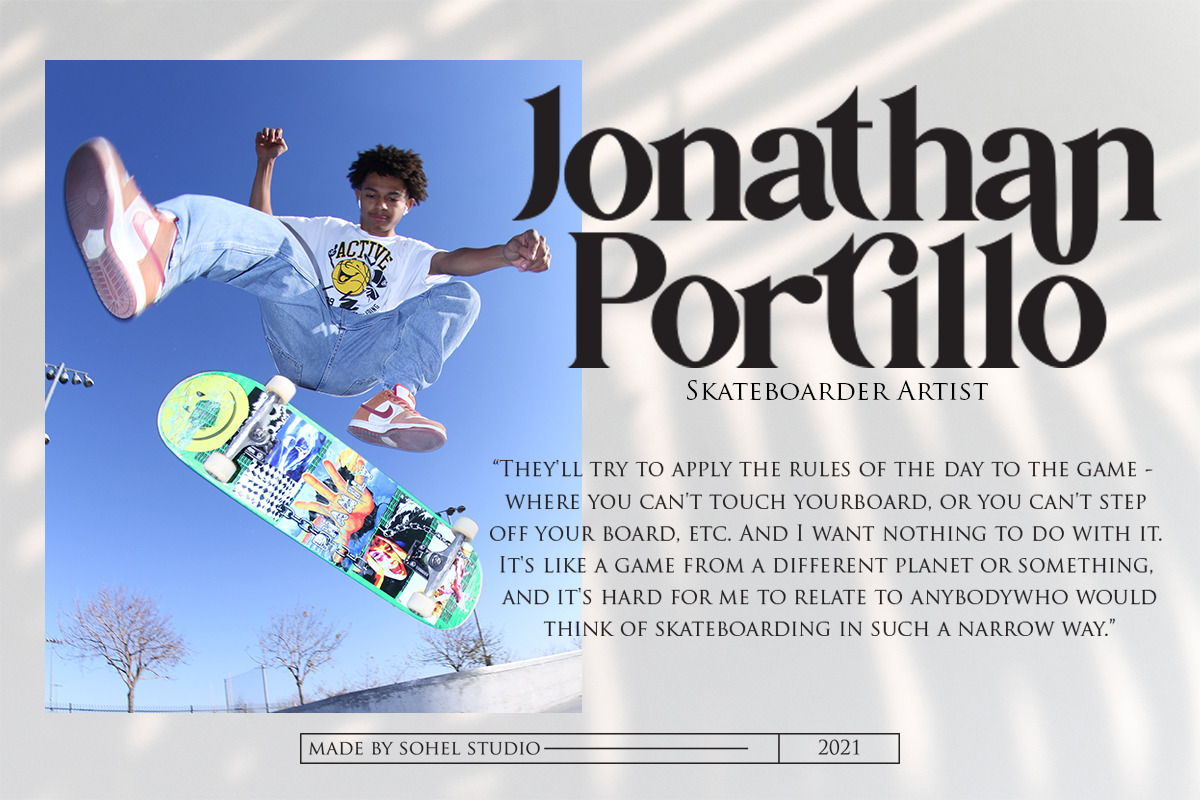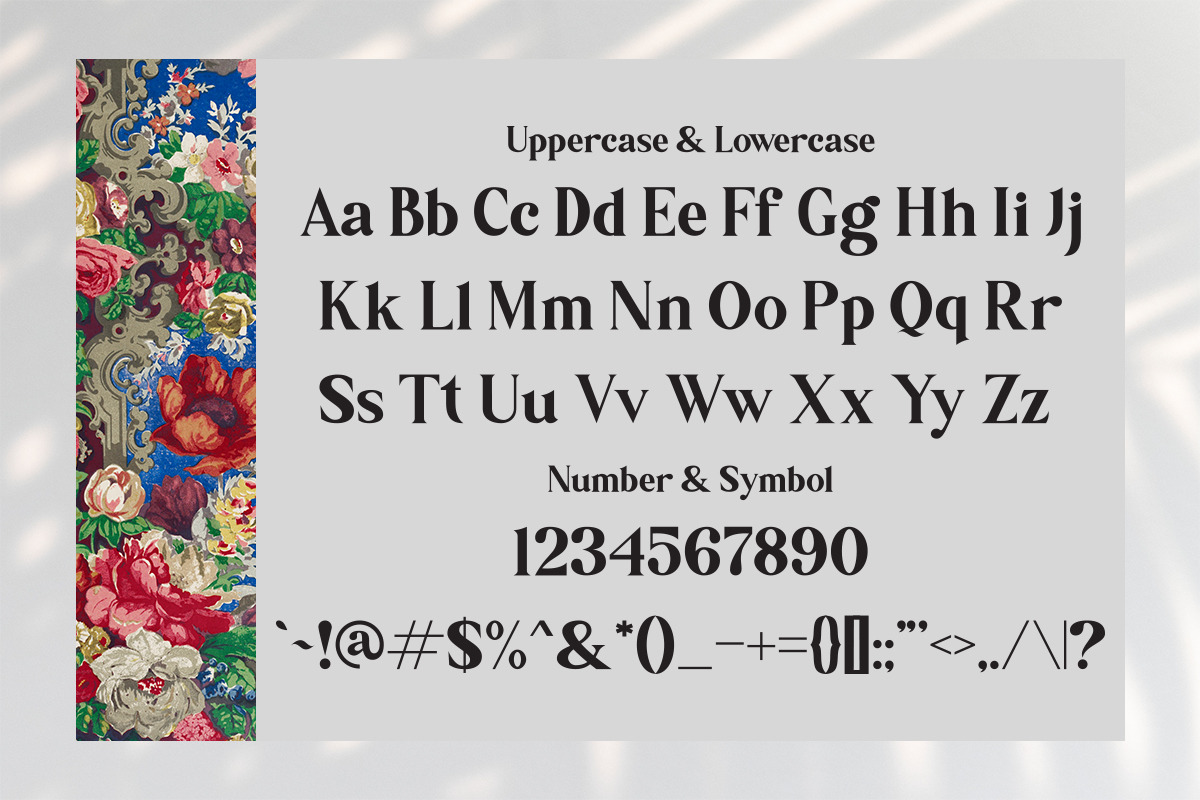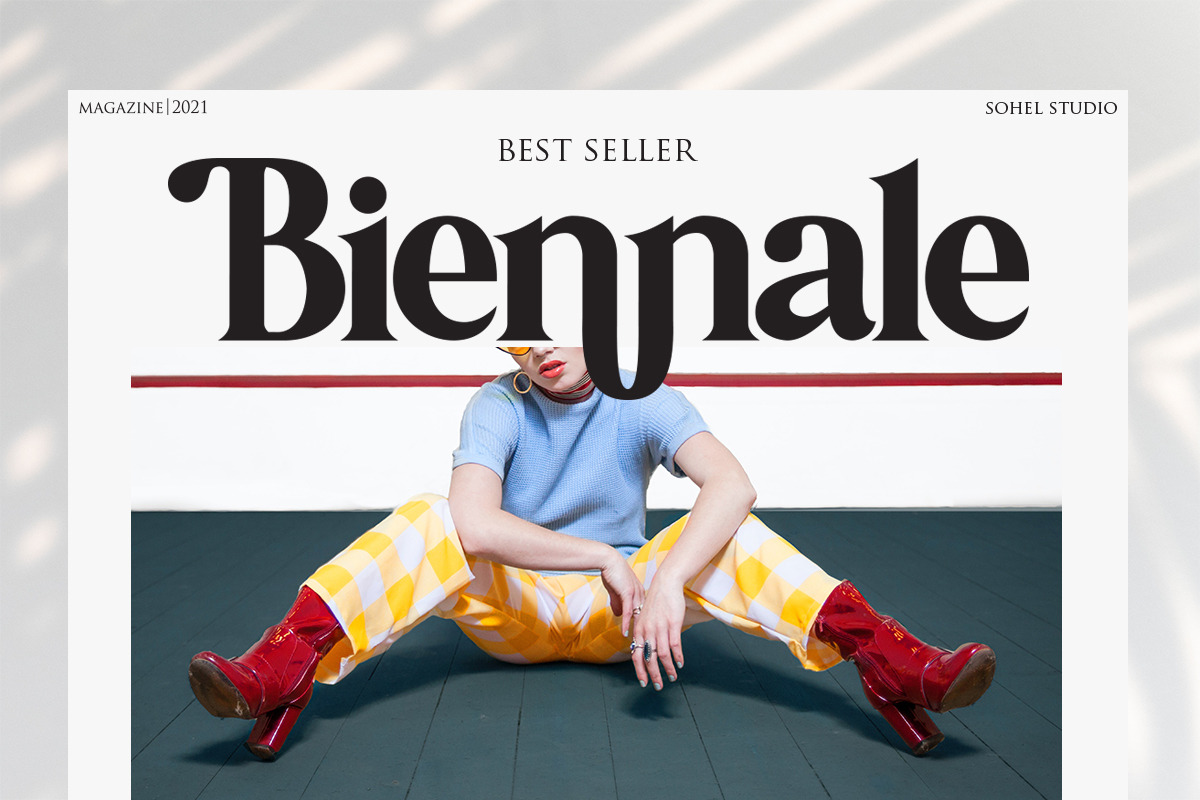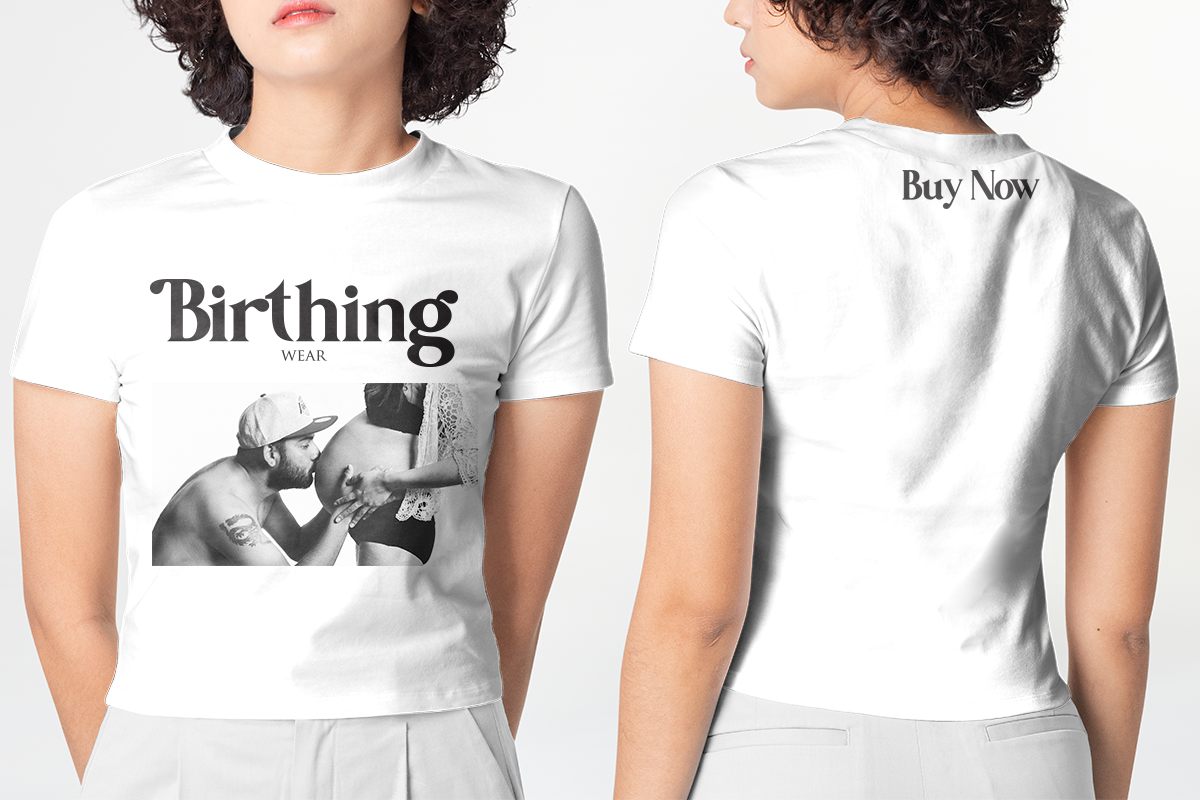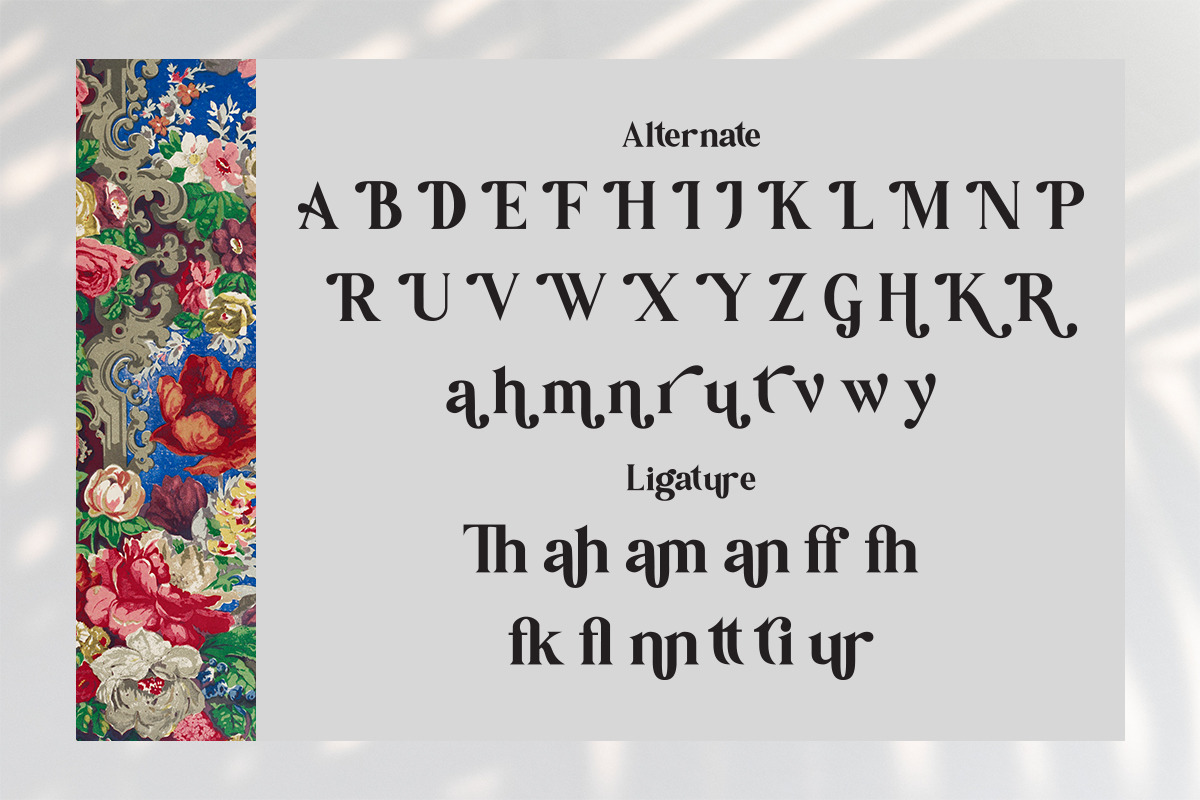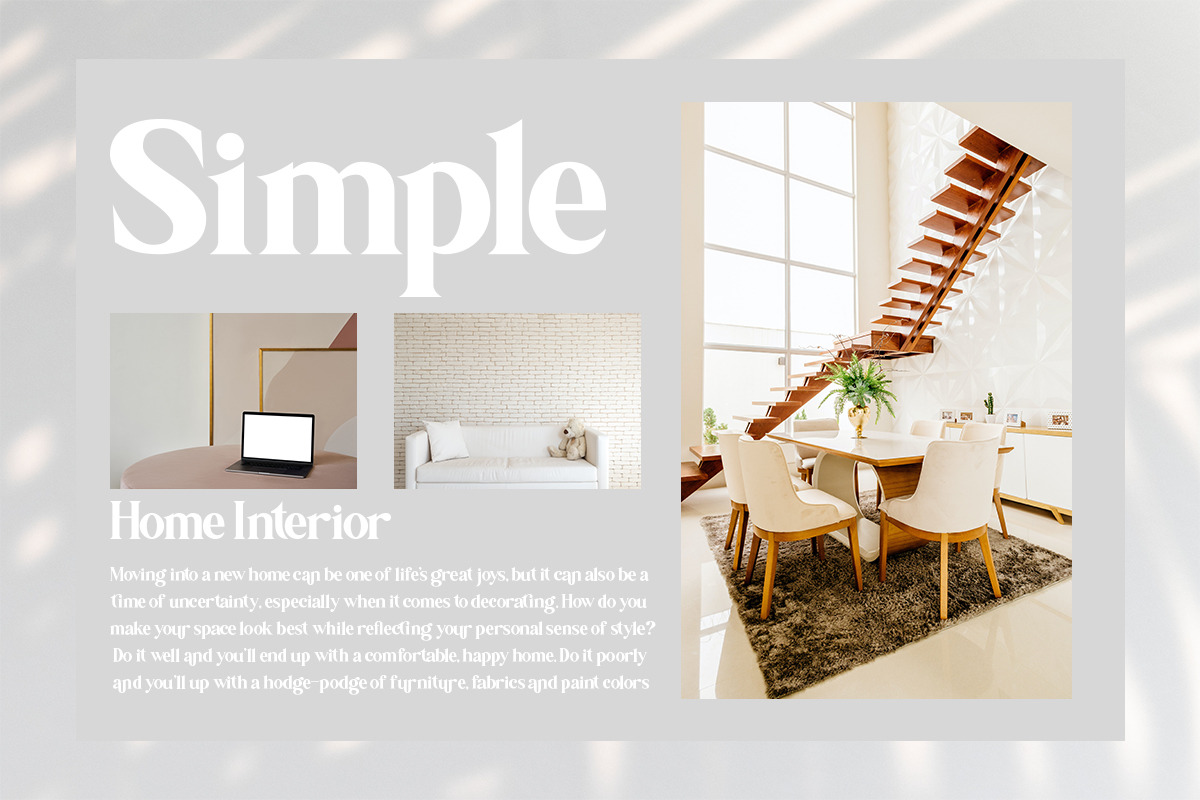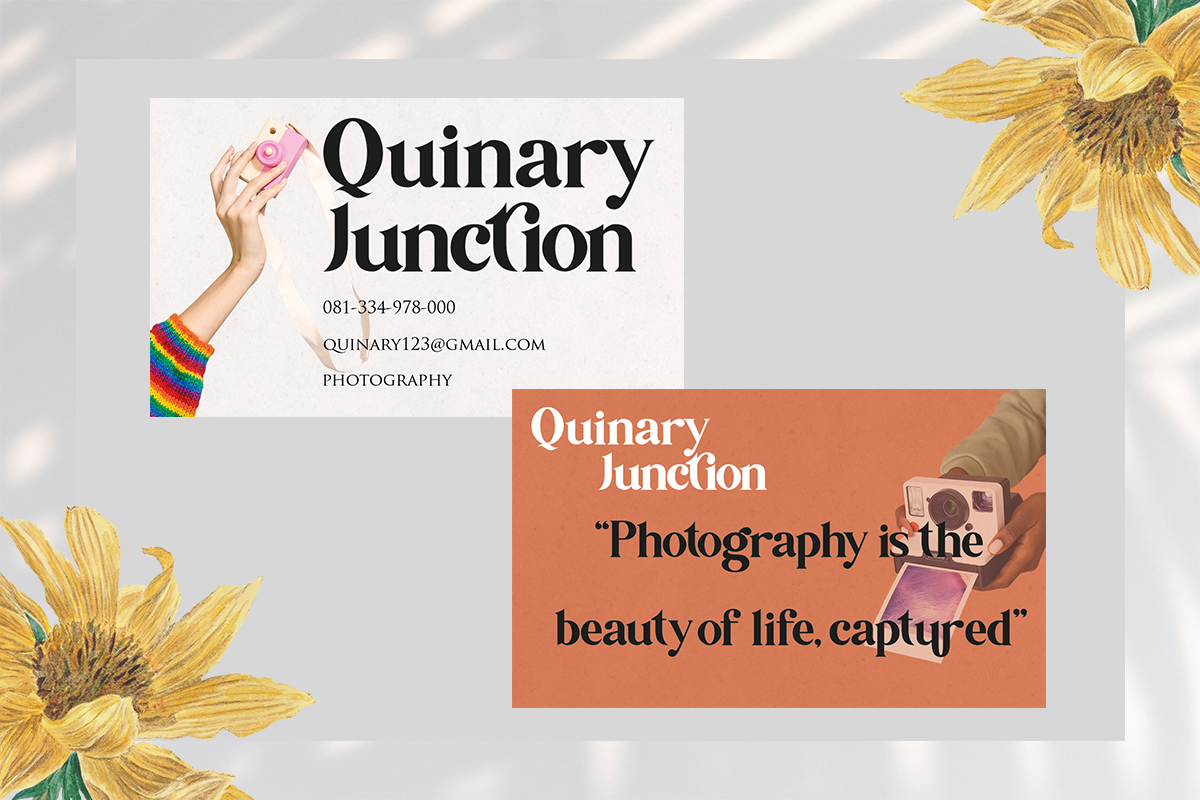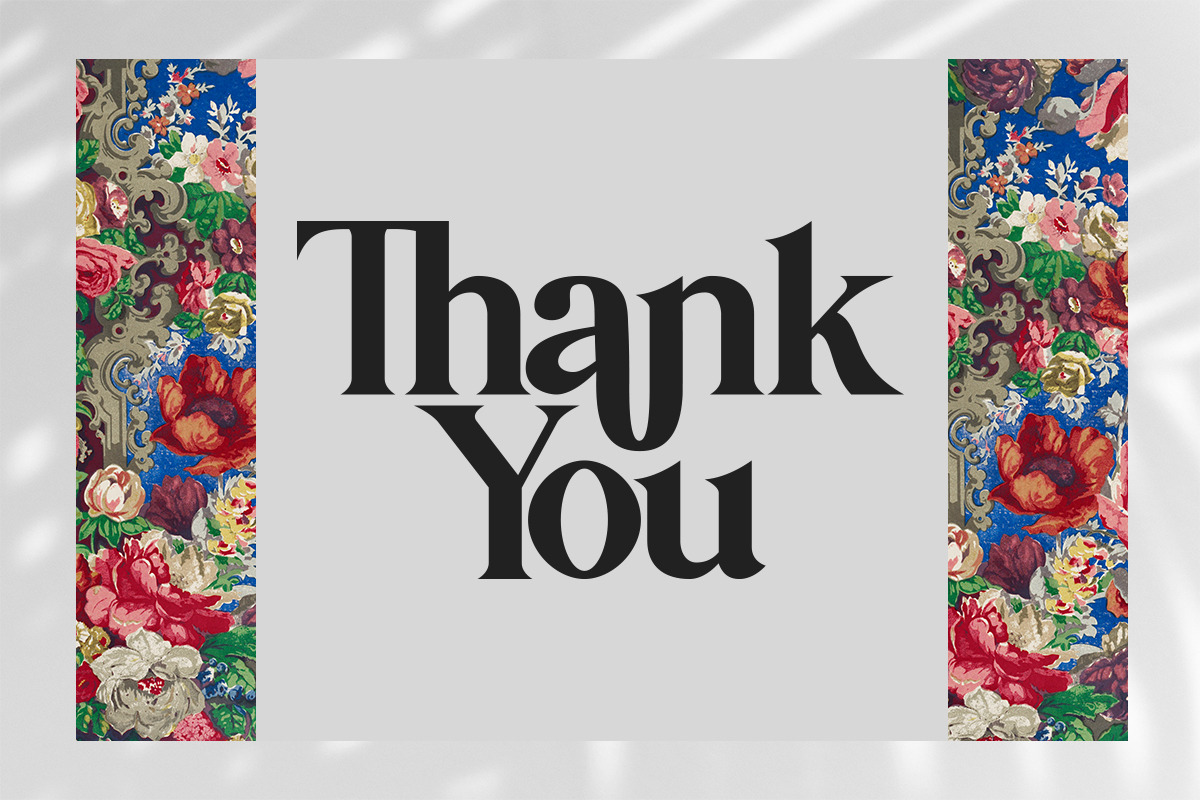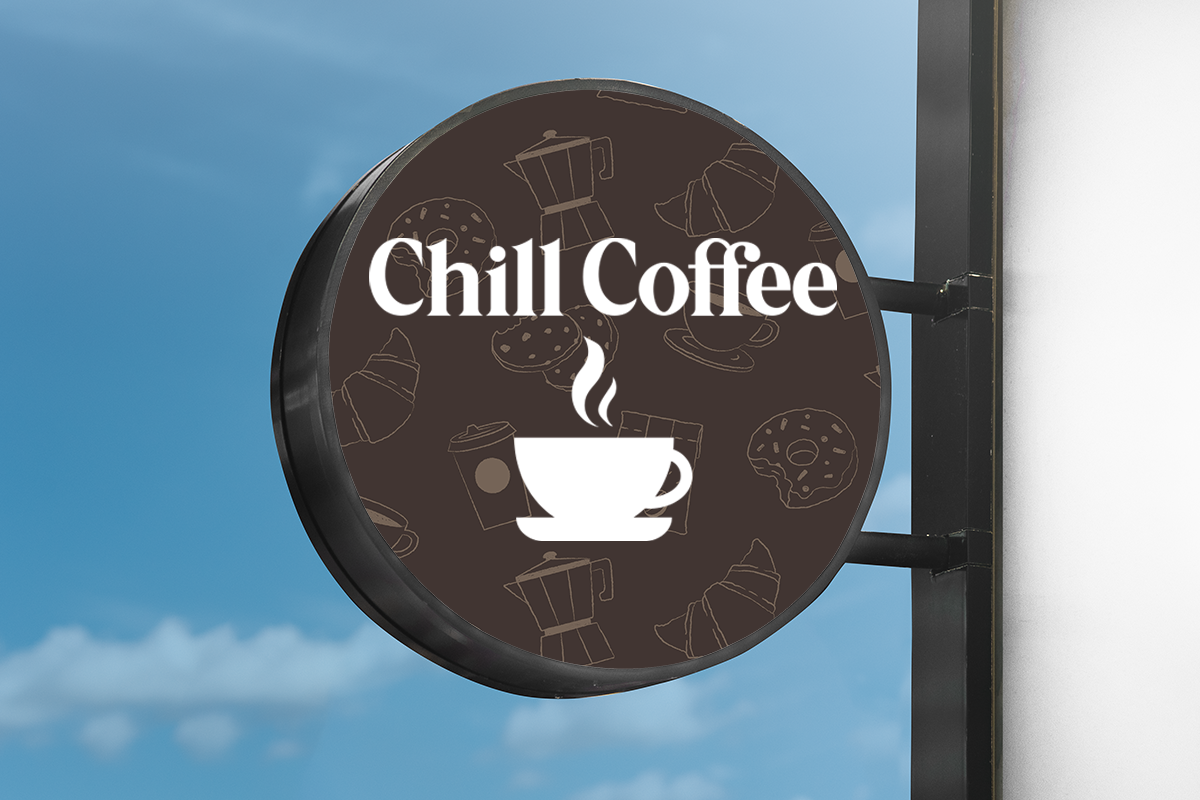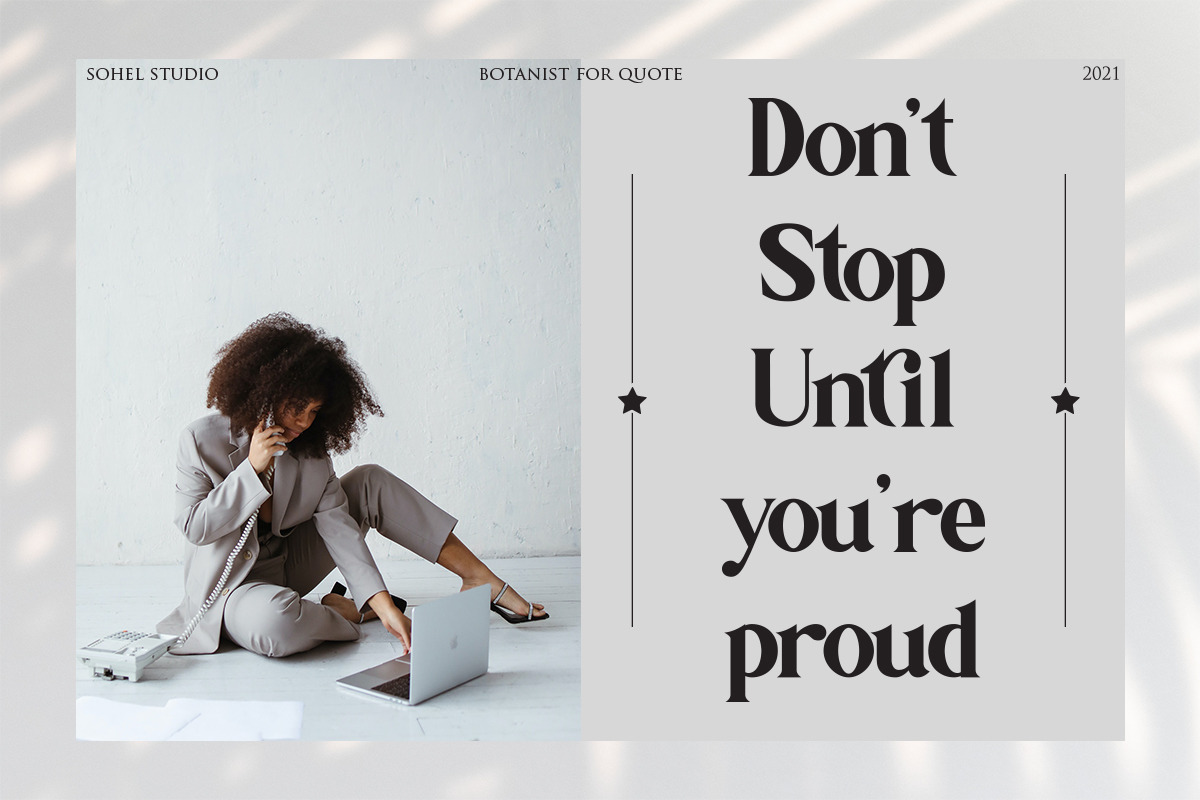
Botanist | Modern Serif
Botanist is a classy, bold upper and lowercase typeface that looks incredible in both large and small settings. Best used as a display for headings and logos, Botanist clean lines and smooth curves give any project an extra touch of class.
- 4 Weights font (Regular,Italic,Bold,Outline)
- Lowercase and Uppercase
- Beautiful Alternates & Ligatures
- Multilinguale